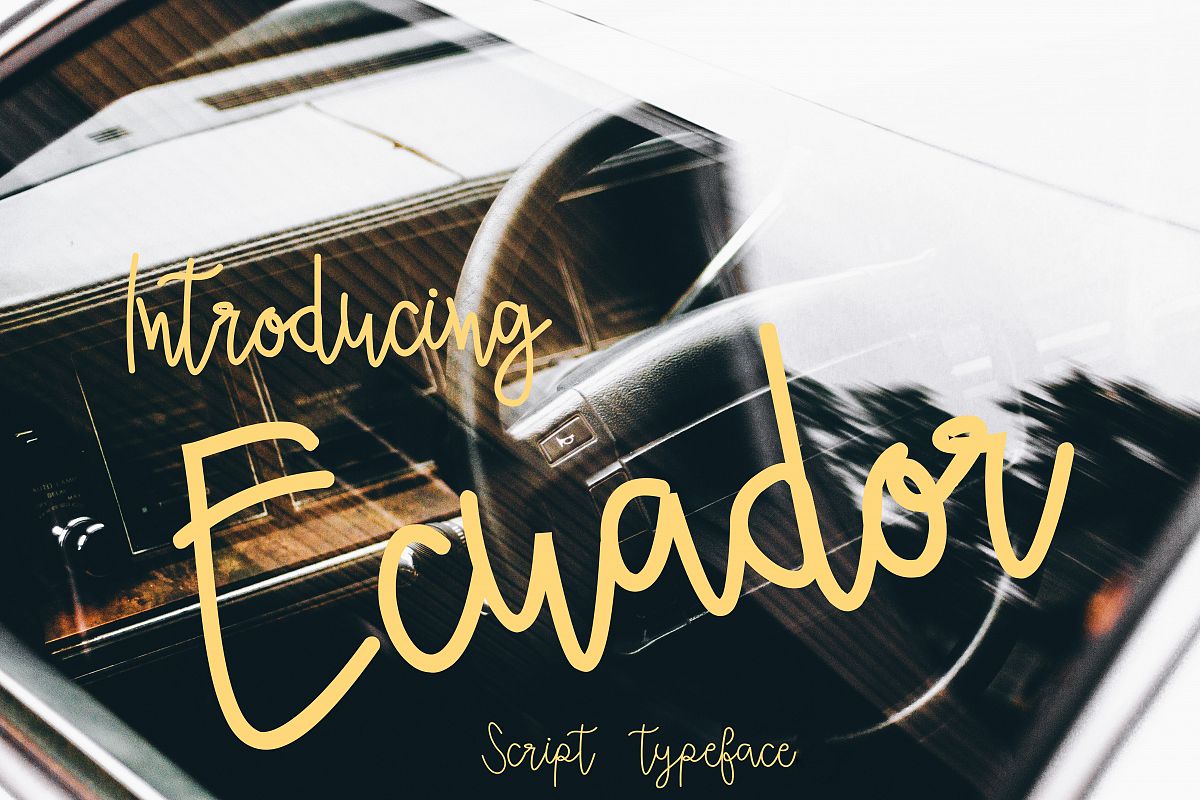
Ecuador (Bonus vector)
Ecuador Bold
Ecuador
has been present for you. "Ecuador" is perfectly suited to signature, stationery, logo, typography quotes, magazine or book cover, website header, clothing, branding, packaging design and more.Ecuador jga comes with ligature and supports language
And Duo Ecuador bold And Ecuador Script